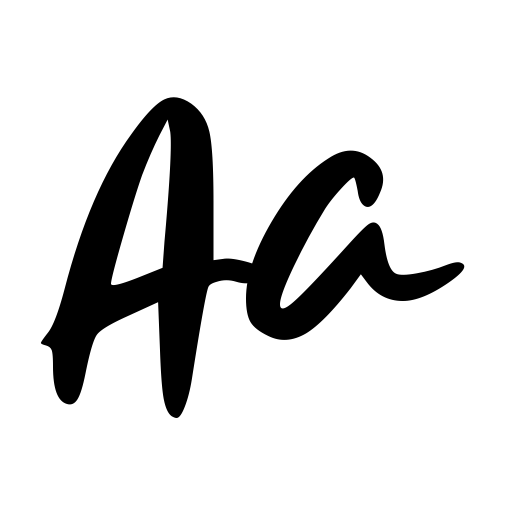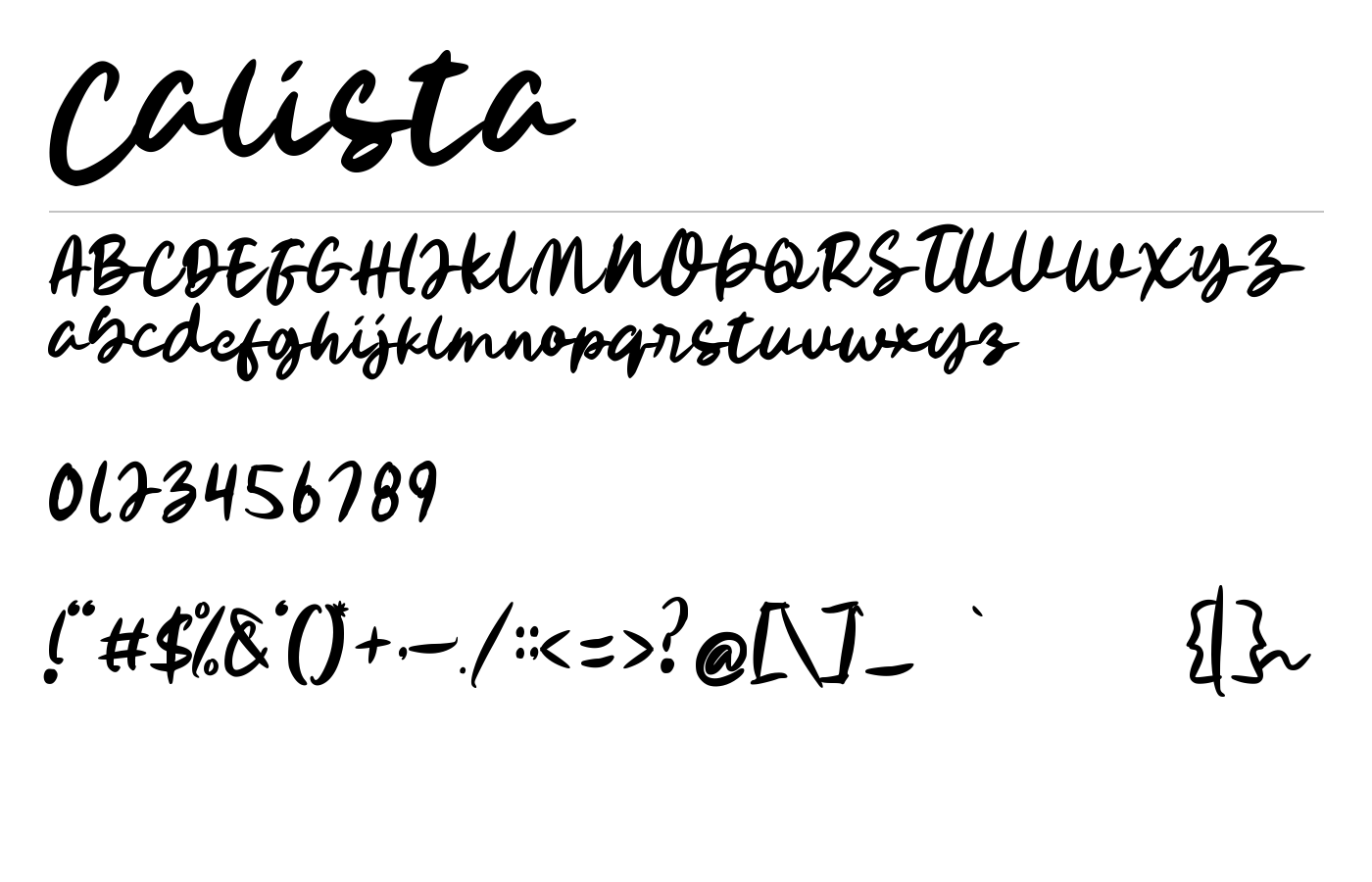
Calista is a lively and casual script font with a handwritten feel, featuring smooth, slightly irregular strokes that give it a warm and approachable personality. It offers a balanced x-height with moderate weight and airy spacing, making it perfect for creative branding, invitations, and informal text where a personal touch is desired. Its friendly and dynamic style works well for designs that want to convey authenticity and charm.
Calista Font
About Calista Font